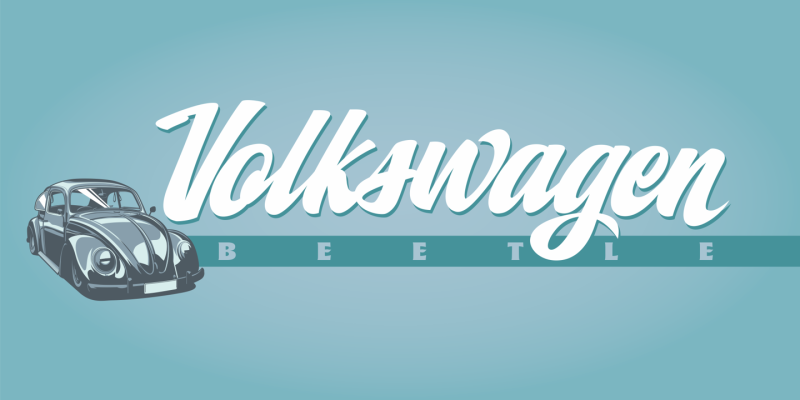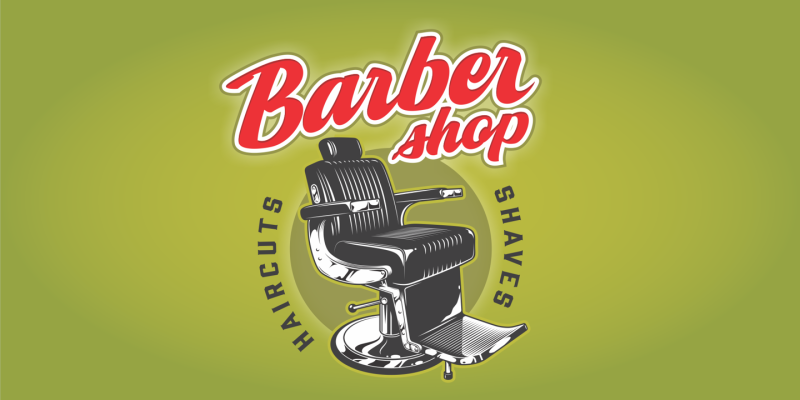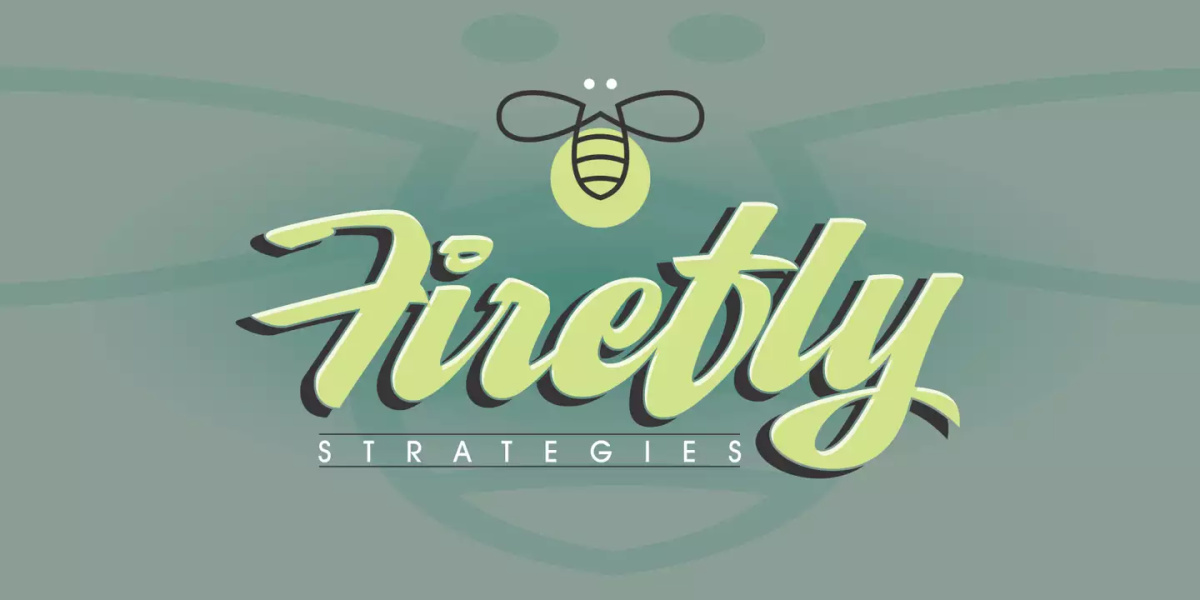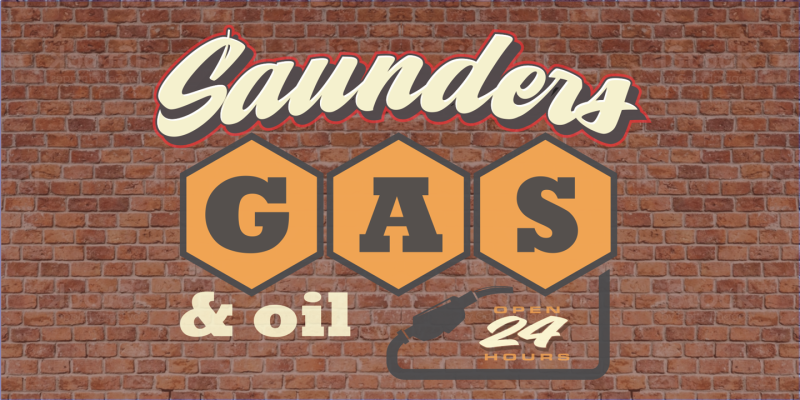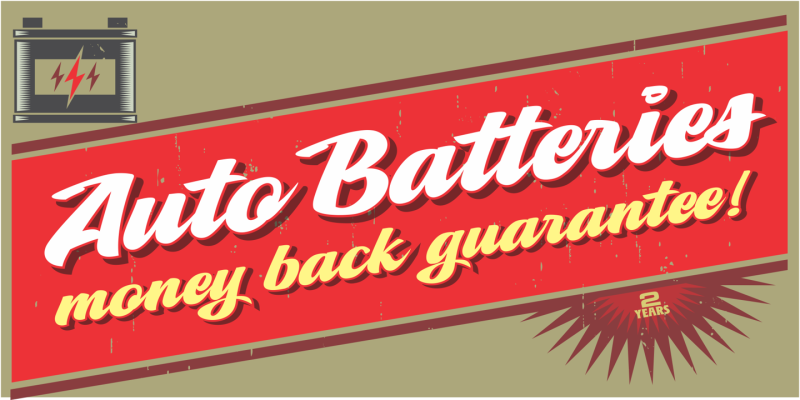
Aplin Script Font
This hand-lettered italic script is another versatile font produced by Jeff Marshall. Named after the late Ron Aplin, who mentored Jeff as an apprentice sign writer earl…
This hand-lettered italic script is another versatile font produced by Jeff Marshall. Named after the late Ron Aplin, who mentored Jeff as an apprentice sign writer early in his career. This font includes 19 unique ligatures and 15 alternate special ending glyphs.
Where Aplin Script Font works best
Aplin Script Font brings a personal, handwritten warmth to invitations, menus and place cards.
Craft brands — coffee, cosmetics, bakery — use scripts like Aplin Script Font for signature-style logos and labels.
Pair Aplin Script Font with a plain sans for quotes, stories and Pinterest pins that feel handmade.
What is Aplin Script Font good for?